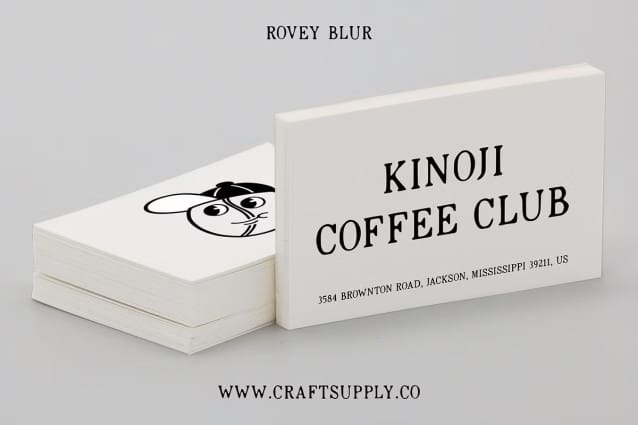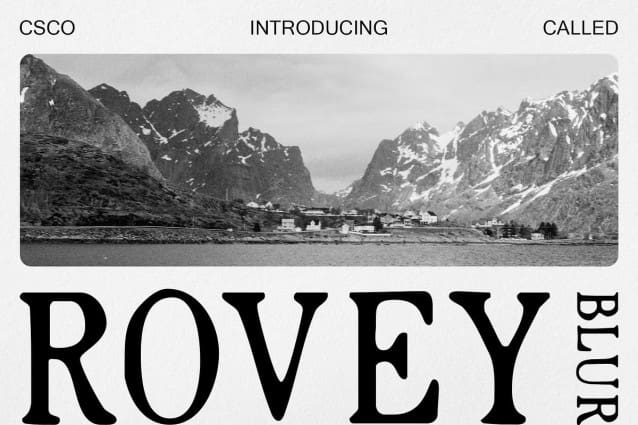
Rovey Blur Font
Rovey Blur Font is a serif font with a vintage vibe and a blur style, perfect for display purposes. Its classic design combined with blurred elements creates a nostalgic and captivating look, ideal for posters, branding, and other projects that evoke a sense of the past.
With its timeless charm and blurred details, Rovey Blur offers a fresh take on serif fonts. The vintage vibe and blur style create a captivating and sentimental look, perfect for designs that seek to connect with the past and evoke a sense of nostalgia.
Whether you’re designing a retro-themed poster or creating a nostalgic brand logo, Rovey Blur is sure to make an impression. Its blur style and vintage aesthetic make it perfect for displays that need a touch of timeless elegance.
Despite its distinctive appearance, Rovey Blur is versatile and easy to use. The font works well in both large and small sizes, making it suitable for a variety of applications, from headlines and banners to body text and more. With its blend of vintage vibe and blur style, Rovey Blur adds a nostalgic and elegant touch to any design.